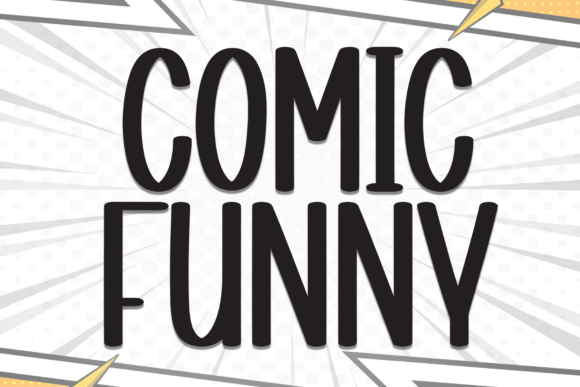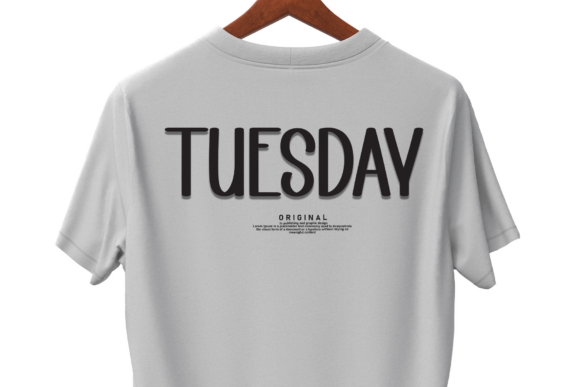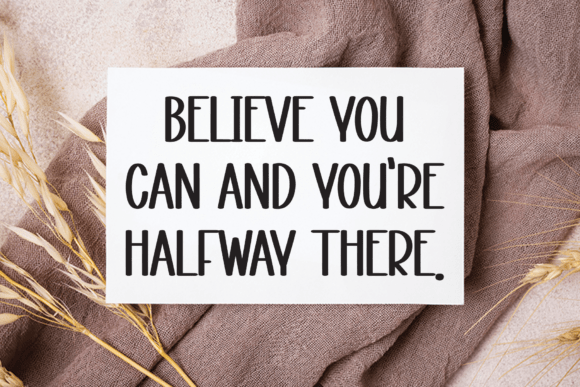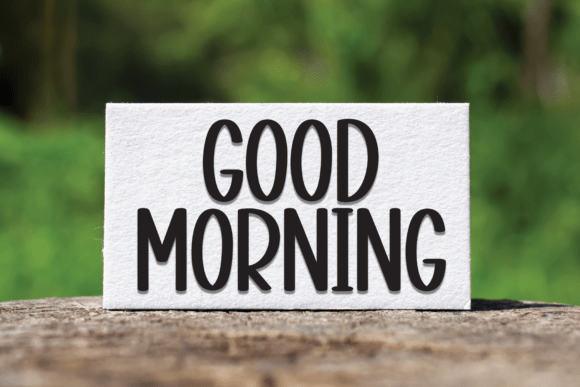
Comic Funny Font
About the Comic Funny Font
Let us introduce you to Comic Funny Font, where timeless design meets modern craftsmanship. Introducing a charming handwritten display font that oozes sweetness and friendliness. Dotted with elements of cuteness and amusement, this font has been intricately designed to infuse a playful touch to your designs. Whether you’re penning down heartwarming wedding invitations, crafting delightful cards, or embarking on any design adventure that calls for a sprinkle of joy, this font is your go-to choice!
Comic Funny Font excels in headlines, short text blocks on posters or packaging, and social media graphics where its playful nature shines. It’s ideal for projects targeting a young, fun-loving audience, such as children’s products, greeting cards, or branding for a bakery or ice cream shop. Avoid using it for body copy or lengthy text; its informal style is unsuitable for readability in large blocks.
For effective pairings, consider a clean sans-serif like Open Sans for body text to balance its whimsicality, or a classic serif like Garamond for a touch of sophistication if used sparingly. A simple geometric sans-serif could also provide a modern contrast.
The font’s core personality is undeniably playful and friendly, conveying a sense of lightheartedness and charm. Its informal, handwritten aesthetic is best suited for projects requiring a distinctly approachable and informal visual tone.